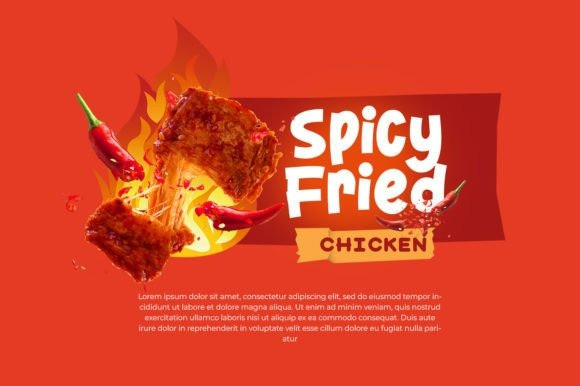
Spicy Style Font
Spicy Style Font, a sizzling and bold display typeface that adds a touch of heat to your designs. With its fiery letterforms and sharp edges, this font commands attention and delivers a powerful visual impact. Perfect for headlines, posters, and branding projects that require a spicy flair, Spicy Style Font ignites the visual senses and adds a dash of excitement to your creative endeavors.